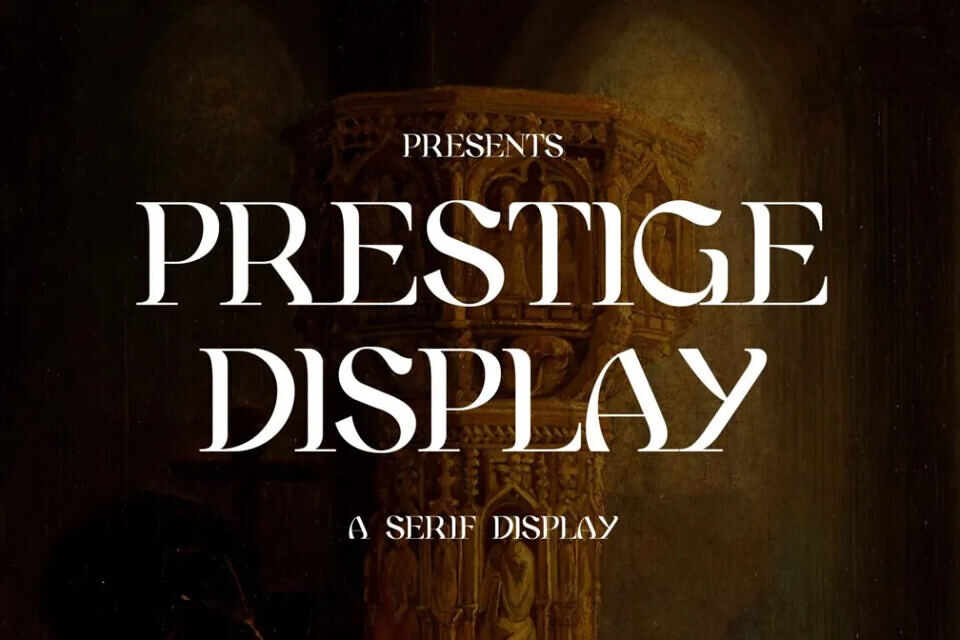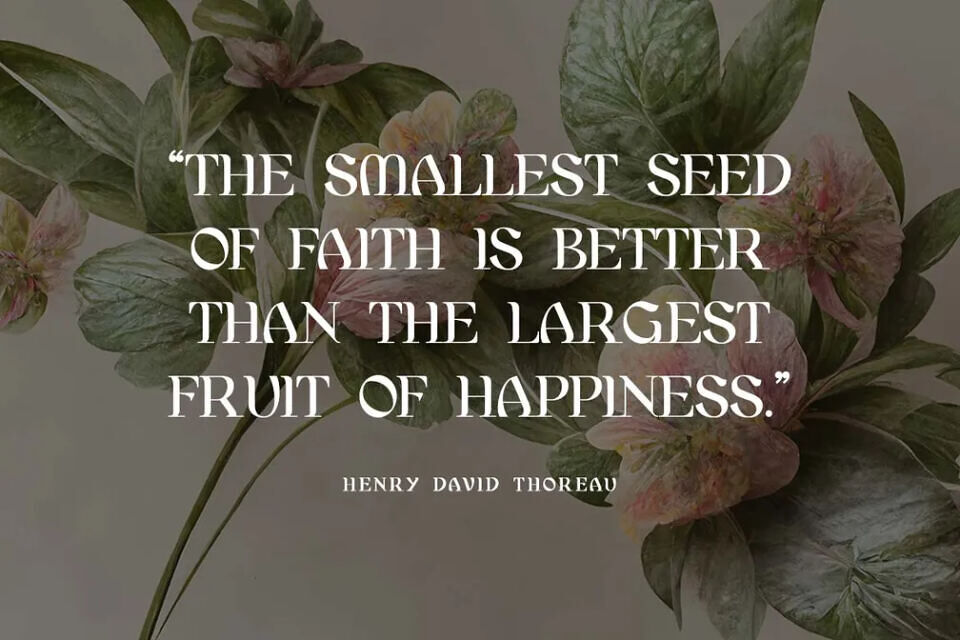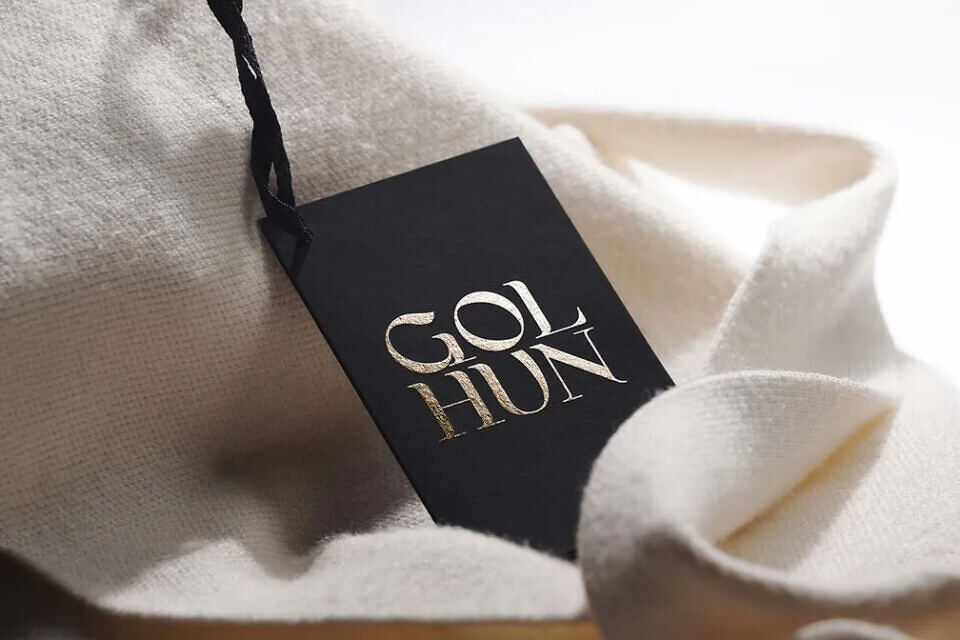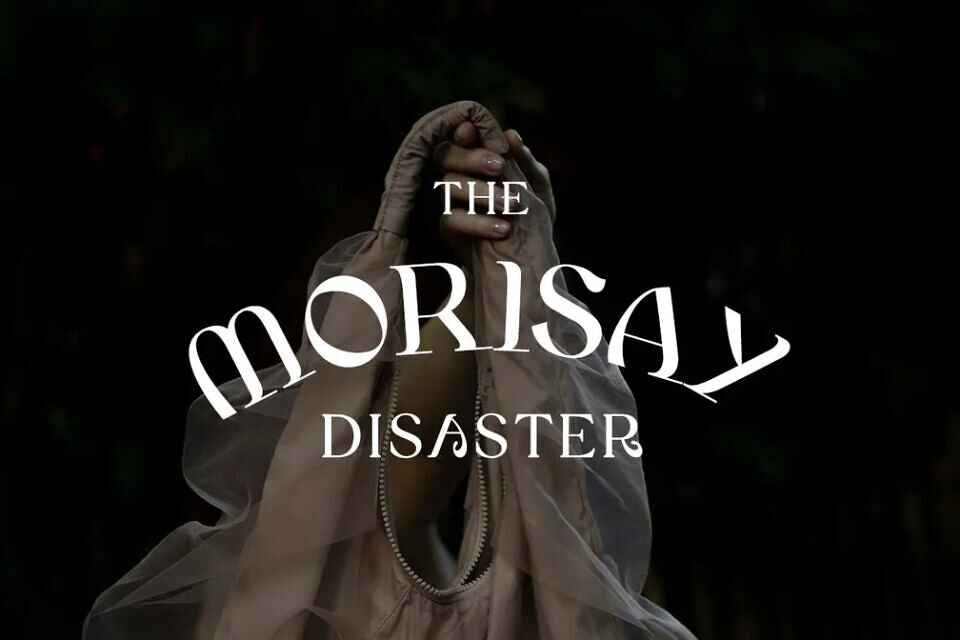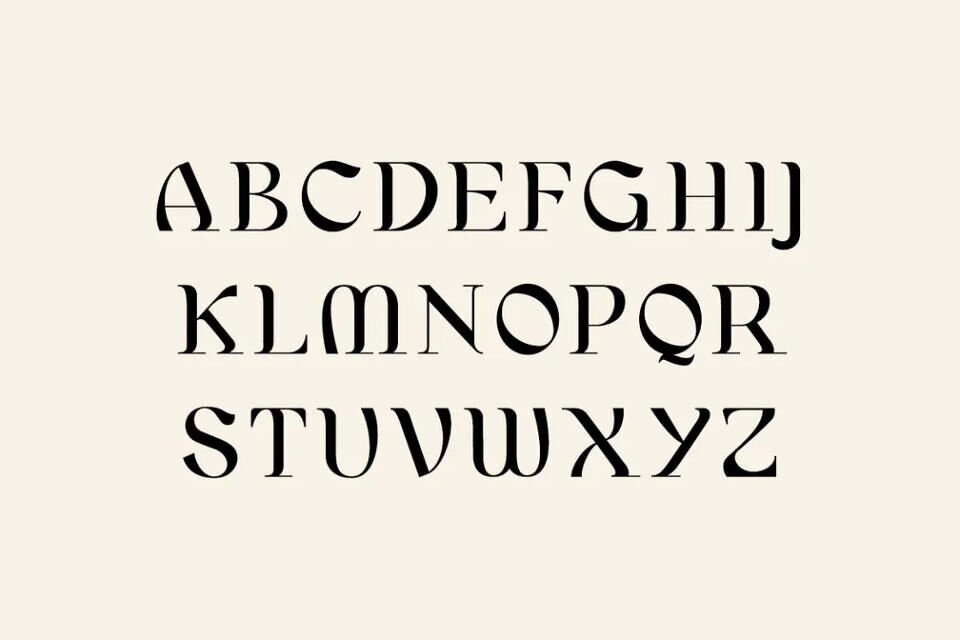
Prestige Display Font
Prestige is a sophisticated display serif font that exudes elegance and style. Its modern design gives it a classy and refined feel, making it perfect for adding a touch of luxury to any project.
This font is ideally suited for a wide variety of projects, such as signature, stationery, logo, wedding, typography quotes, magazine or book covers, website headers, branding, and more. Also, fashion-related branding or editorial design displays both masculine and feminine qualities.